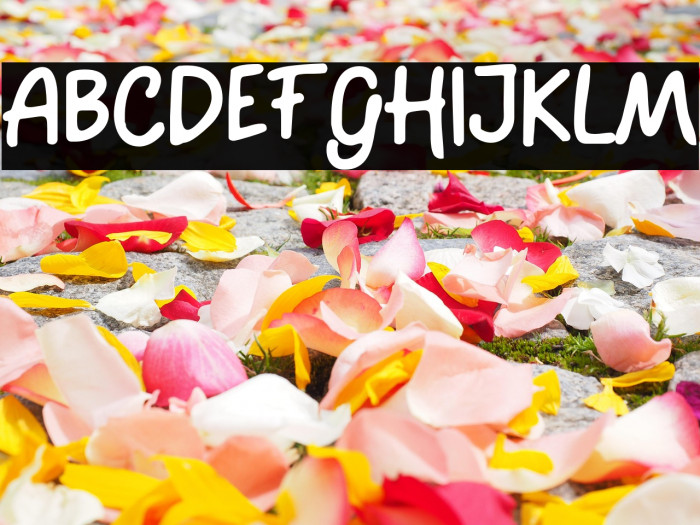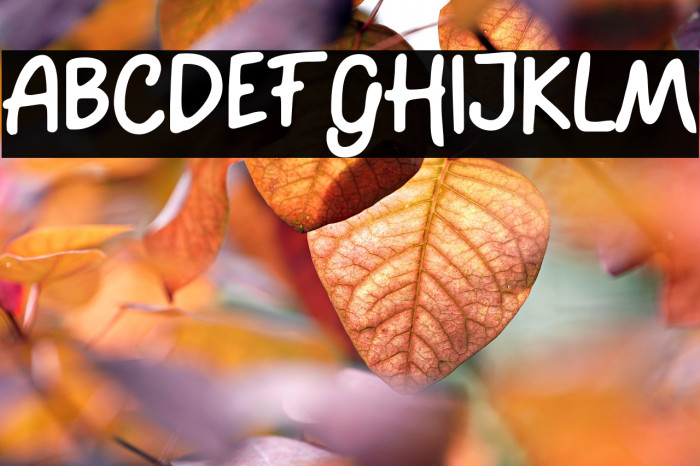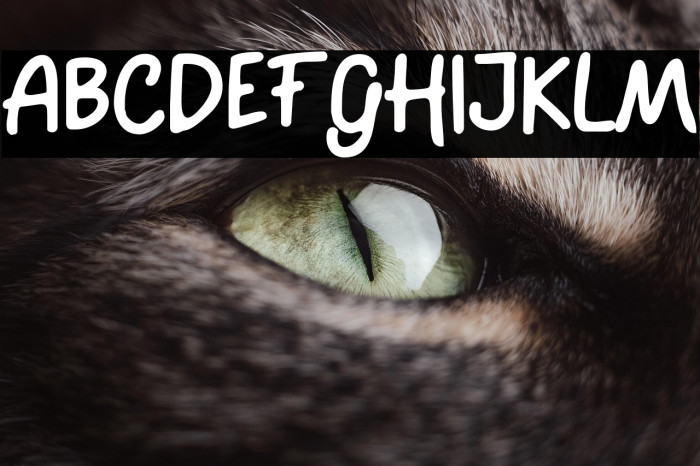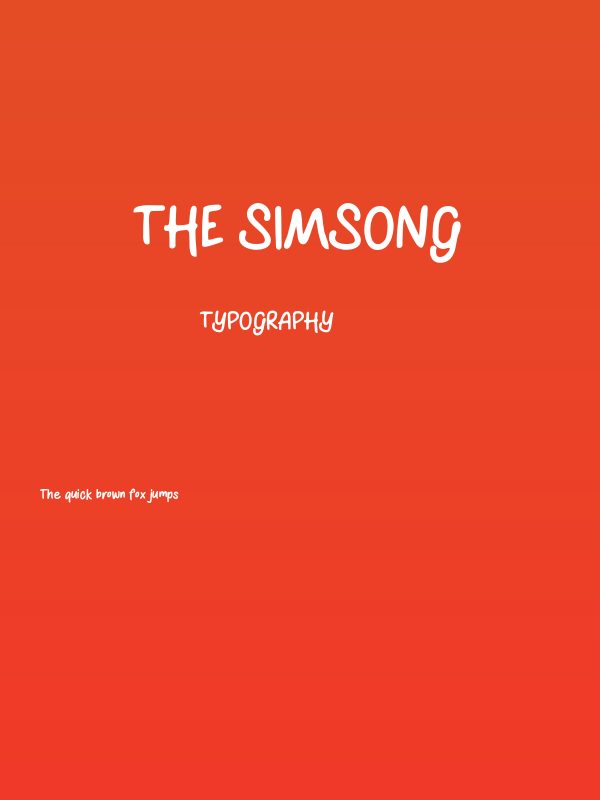
The Simsong Font
| Caz de utilizare | Headlines, Logos, Informal Texts |
| Proiecte propuse | Ideal for children's books, greeting cards, playful branding, and social media graphics. |